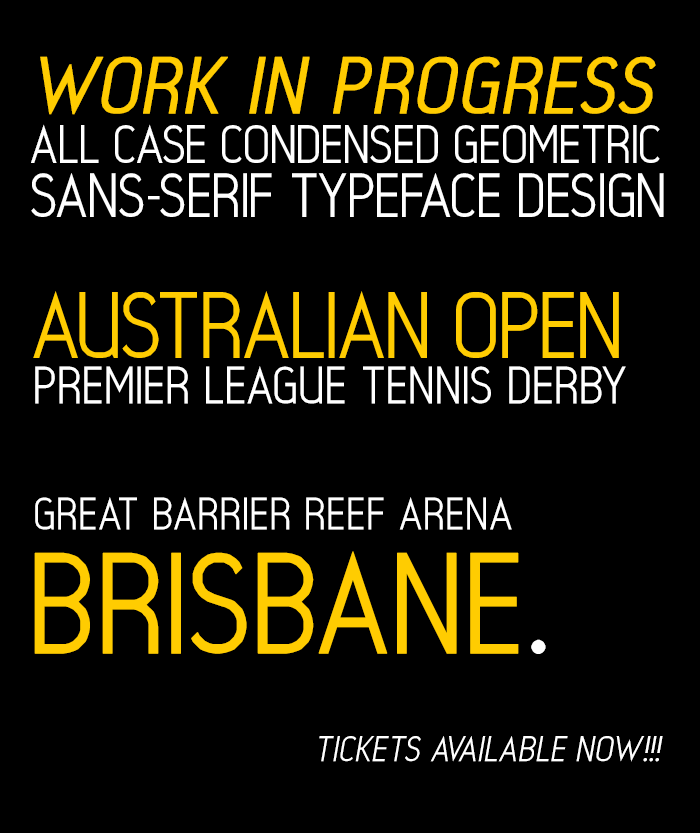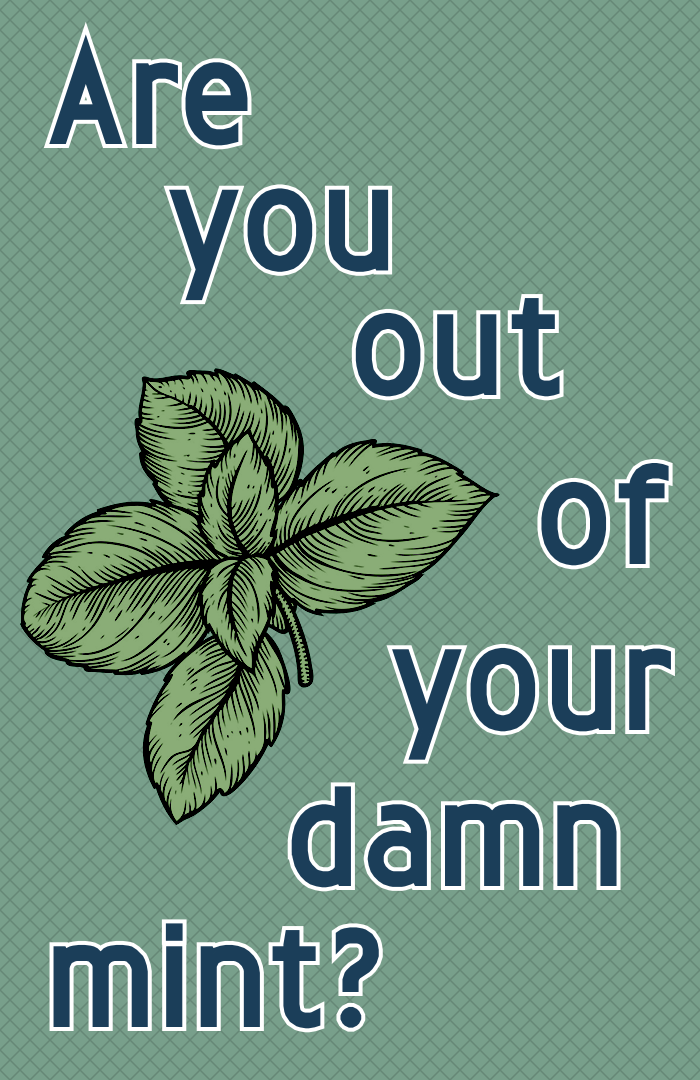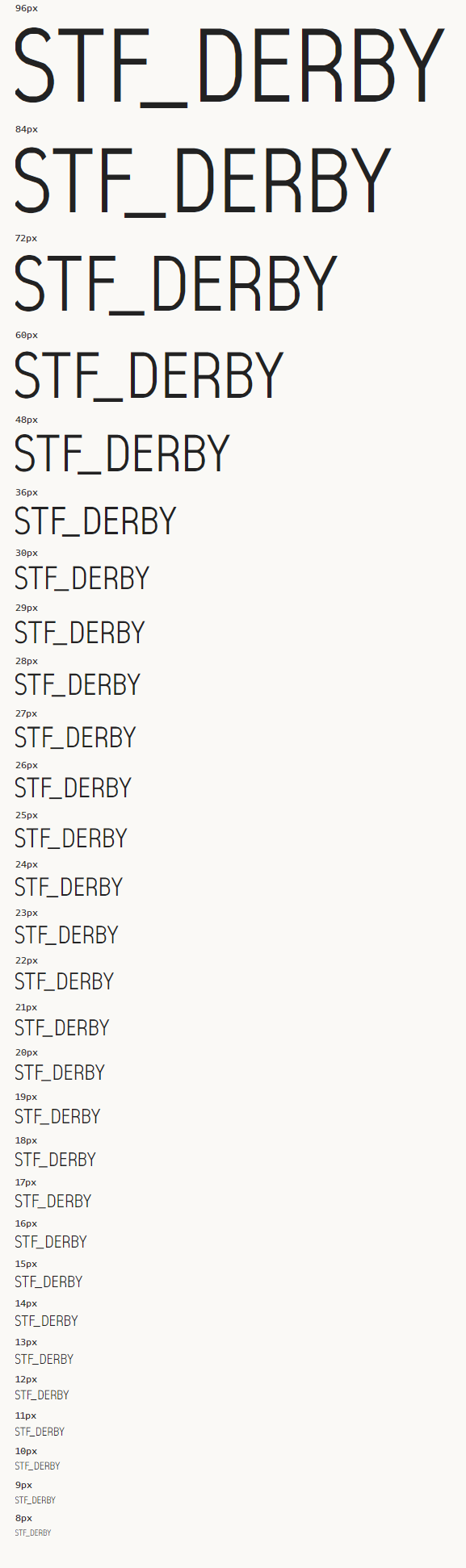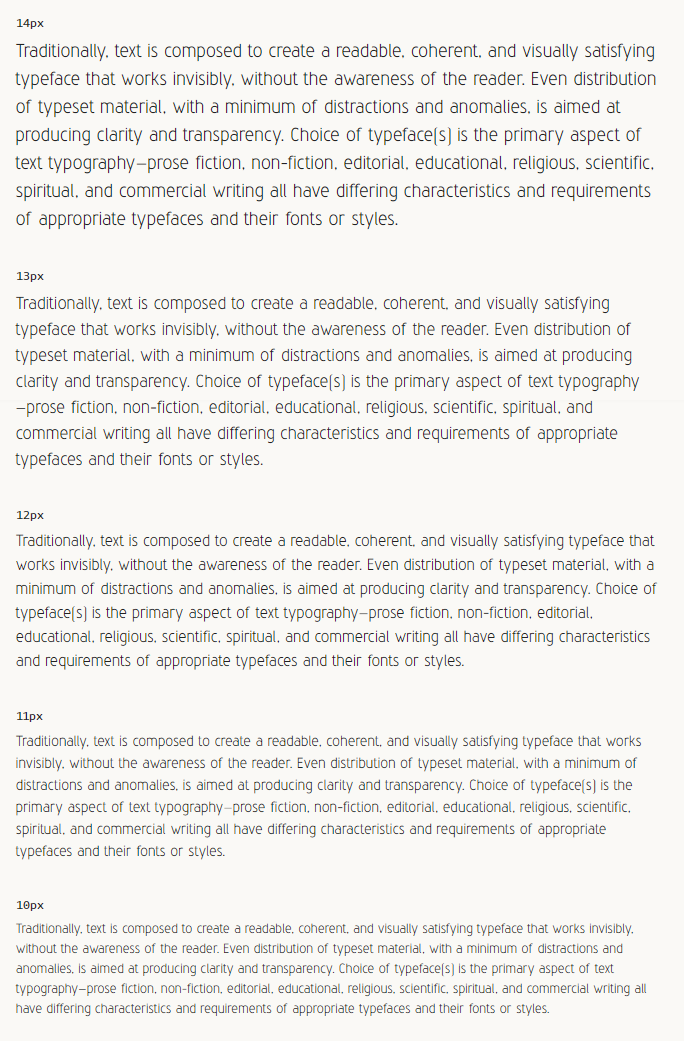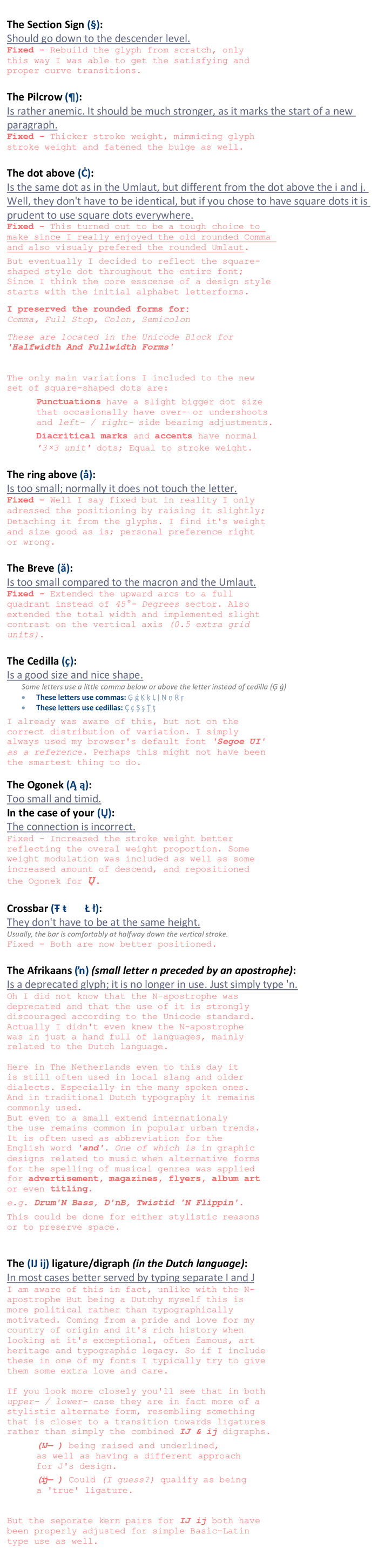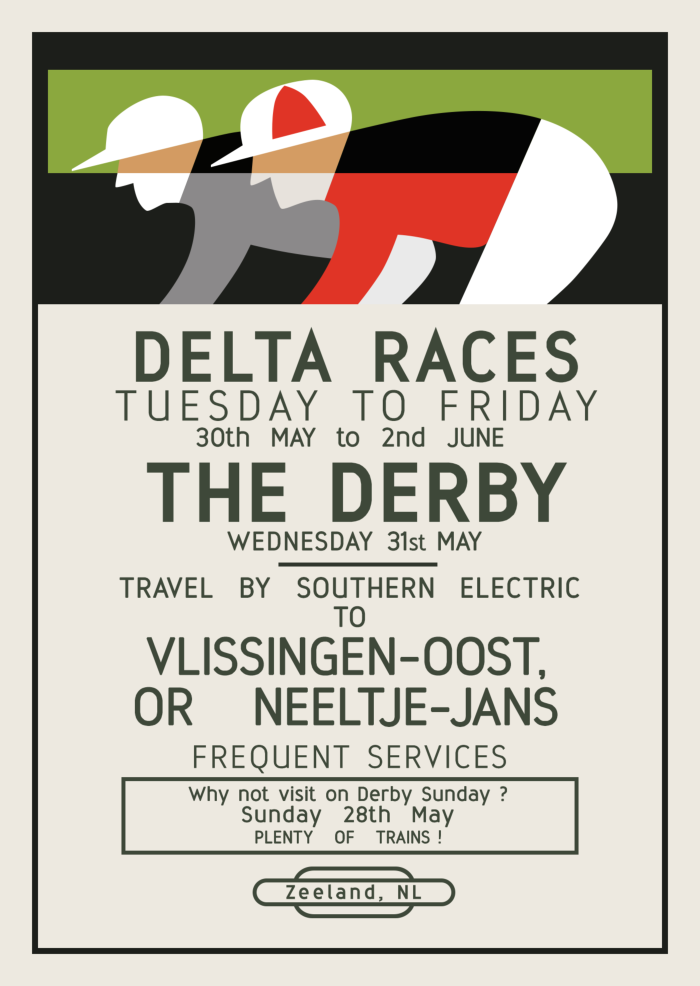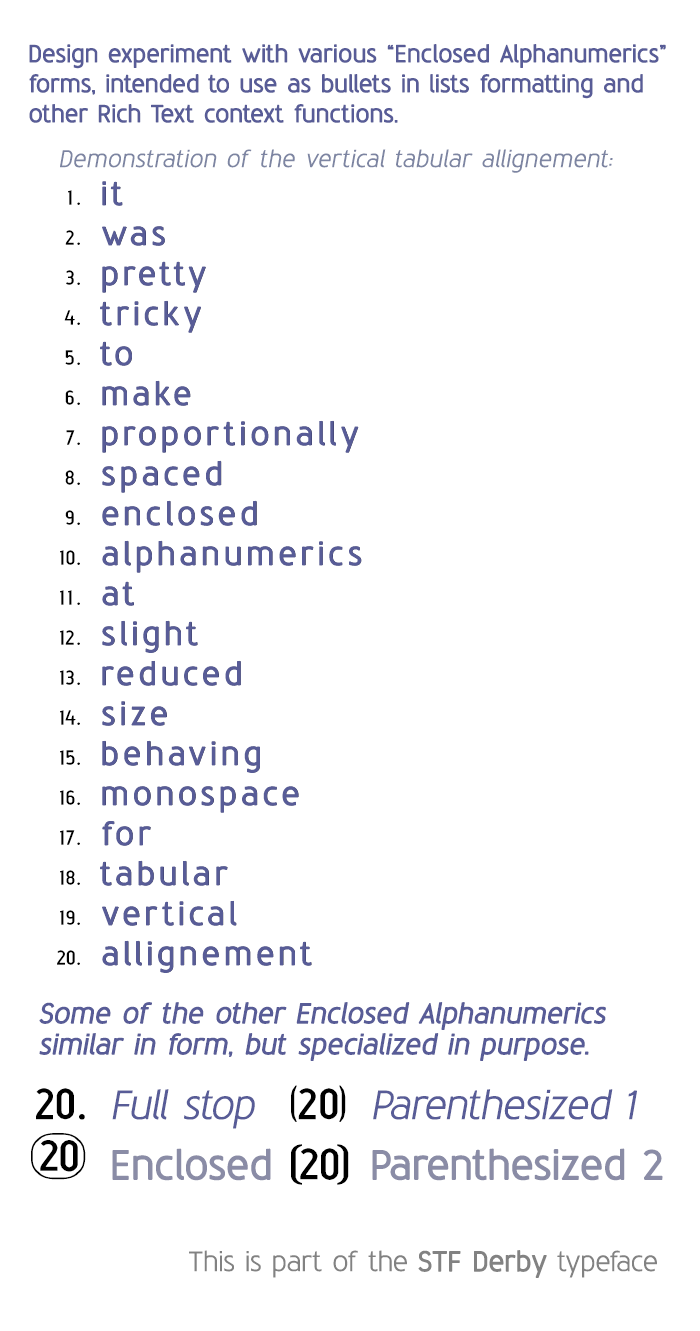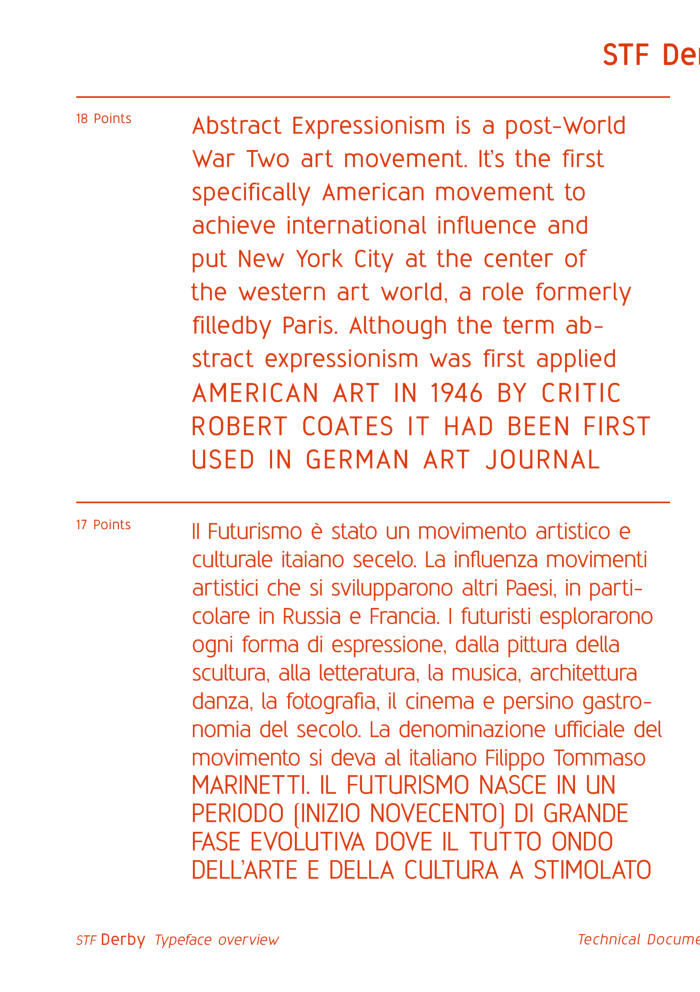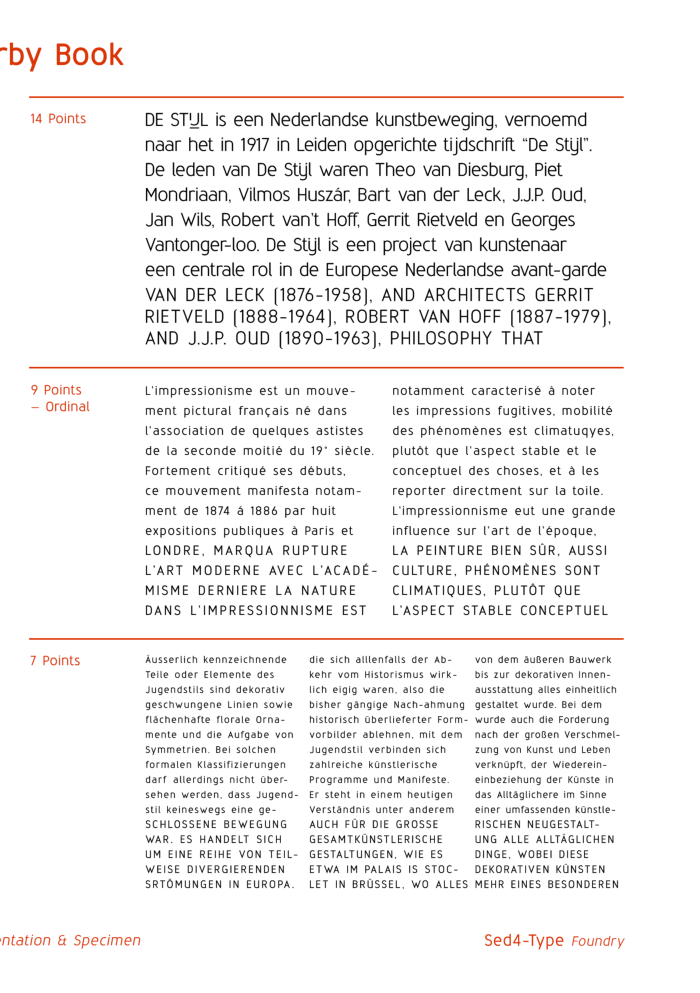
• STF_DERBY - Condensed Geometric Neo-Grotesk sans.
The idea was to make a typeface design that would suit small point size body style typography.
Multilingual support (94 languages)
Partial kerning WIP (8694 Pairs and counting)
The fontstruction is a Faux Bezier style approach, to allow the most freedom in shaping the different letterforms and curves.
Font sample is best viewed at 2x pixel size or above for a sharp result.
Here is a little peek under the hood :)
I added the lowercase to this font today, I'm curious what u guys think of it so far, and what might needs some extra work, all tips and suggestions are welcome, more will follow soon
Another update made to this today!
Many new characters and symbols added
Adjusted many letterforms to make them look slightly better
Kerning applied to most pairs (not completed the full font yet)
But its definitely decent enough now to make it downloadable,
Today's update:
Ligatures added
Additional extra punctuations added
Started addding extended Latin string
And a little bit of the fontstruction under the hood again, in the bottom left of the image is the ring diacritic and to the right is the Ogonek.
Well everybody, I am pleased to announce the final update for this font.
I couldn't be more happy with the final result. I really enjoyed making it.
It includes plenty of typographic features that will suit a variety of different
tasks.
Specifications:
Multi (Latin)-language support:
- Basic Latin
- Latin Supplement
- Latin Extended-A
Numerous punctuations & symbols
Typographic & stylistic ligatures
It seems something is wrong when generating a TTF. Some of the kerning values that were applied doesn't seem to transfer to the generated TTF file.
So far I can verify the problem exists for the following characters.
F f L l R r T t
There might be more characters that are affected but I haven't found them yet. And somehow only the kerning value for the right side adjacent pairs of the character are missing/not applied. The left sides adjacent pairs all seem to function as should and still have their kerning value applied.
But, even stranger is, when I view the kerning settings in FontLab Studio, the value's do appear to be present and included in metrics table of the font. But no text editor or design software is applying this to the actual font when I use it!
See the provided image.
[Wow @ Meek] I don't know what it is that overtime got changed/fixed, but something in Fontstruct's back-end now handles the metrics tables (I think) different.
Thank you 100x for whatever you did boss, but this fixed all the previously corrupted / incomplete metrics data transport when a *.TTF file was generated for this font.
So, 3 years ago when this was still a active WIP, I ren into some tech difficulties with the metrics data (kerning, sidebearing) not correctly transfered from the Fontstruct editor into the generated *.TTF font file.
And I did absolutely nothing to the project ever since due to this issue. But when I recently downloaded it again to use the font in a project, I noticed that the earlier issues I encountered, now magically had vanished and all seemed to look as if they had all been fixed, like nothing had ever happened to begin with. Now I can finally show the font in its true full form and glory!
This is such a great prospect in general by the way, knowing this exact same issue manifested in a couple of other of my Fontstructions as well.
@Sed4tives: This is a stellar achievement, even in this half-finished stage. You must feel awful, as virtually nobody commented or rated this work. Well, I kept this page open until now so as to remind myself I had to write about this project. It could be bad timing: everybody is busy elsewhere in the HeavyComp frenzy.
First of all, this project is very well documented and amply supplied with samples. You've done thorough testing in different sizes and the basic Latin set checks out all the boxes. The text flows naturally, it is pleasant to read, even at 10 pt. (I think you really meant points, not pixels.) Even the sample text is very informative.